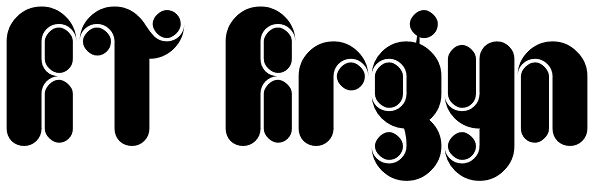
AT Argyn
Argyn is a display, stencil face with a hint of 3D. It was designed mainly using circles which gives it an overall consistency and warmth. Best at display sizes. Suitable for any cute design, may it be for children or adults.